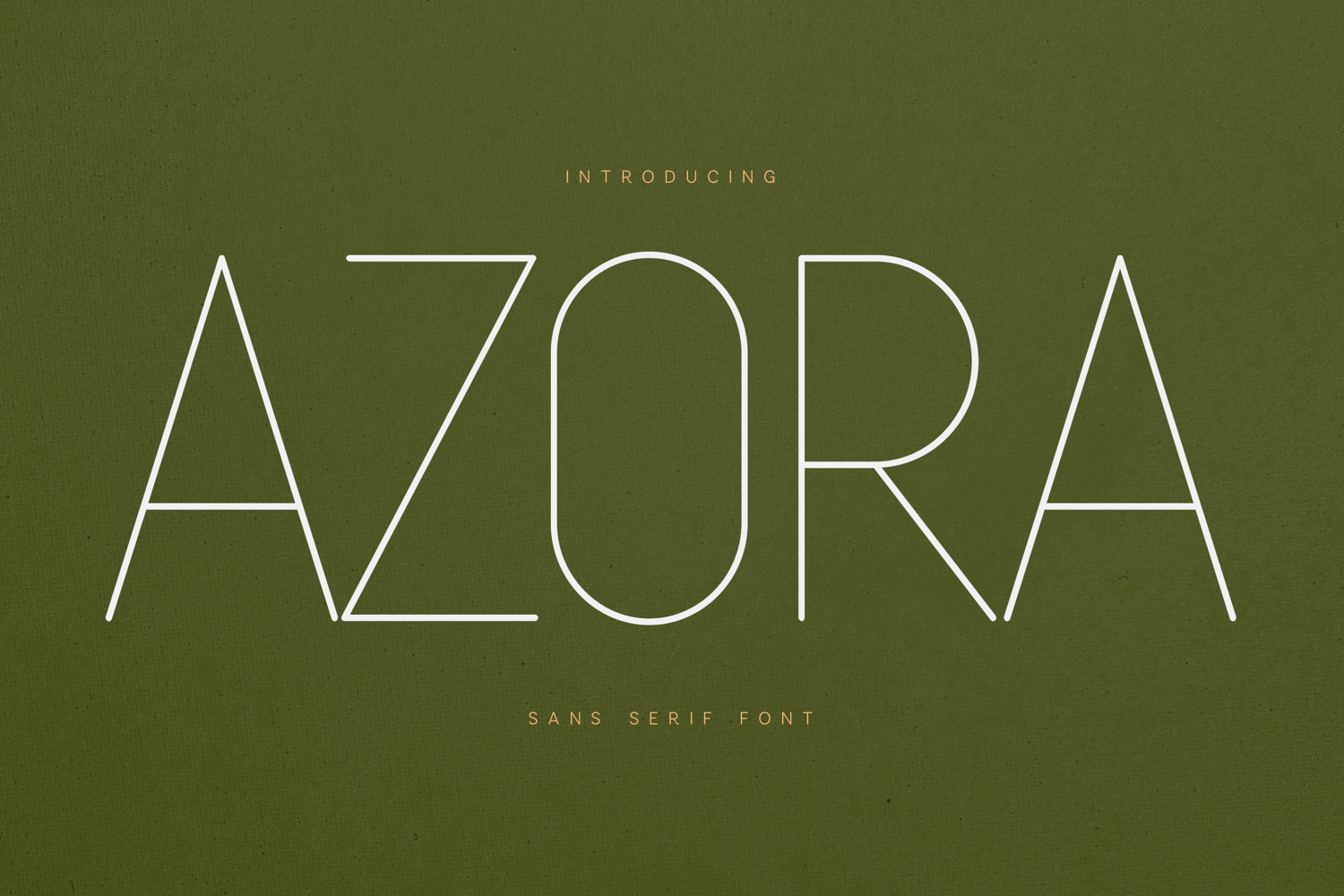
Modern Heritage Minimalist Sans Serif Font
Azora is a clean, minimal sans serif font designed with elegance and precision. Featuring thin strokes, rounded geometry, and a modern aesthetic, Azora is perfect for contemporary branding, editorial layouts, posters, logos, UI design, and refined typography projects. Its airy structure and balanced proportions make it ideal for both large display text and subtle compositions. Azora supports multilingual characters, numerals, and essential punctuation, making it versatile for professional and creative use.